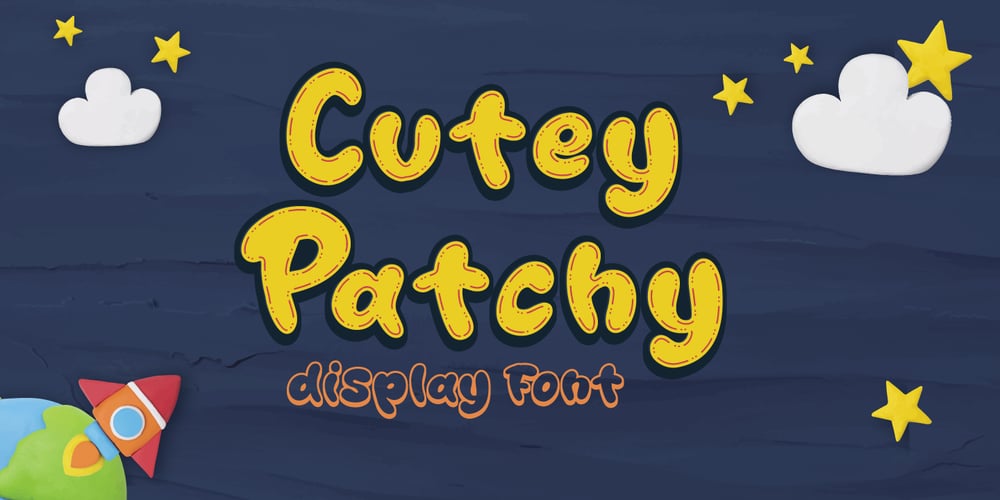
Cutey Patchy Font Family was designed by Fadli Ramadhan Iskandar and published by Attype Studio. Cutey Patchy contains 3 styles and family package options. Cutey Patchy is a layered display font inspired by tailor patching & sewing cloth!Combine it with Cutey Patchy – Extrude & display style to make an amazing 3D effect on your letter! Cutey Patchy perfect for display promotion, branding, logo, invitation, stationery, social media post, product packaging, merchandise, blog design, game titles, cute style design, Book/Cover Title and more.What’s Included :- Cutey Patchy Family Font- Multilingual Support – Made it into separated file to make it easier to use by beginner & separated file user can use the font with software which doesn’t accept open type features.—Hope you enjoy with our font!Attype Studio